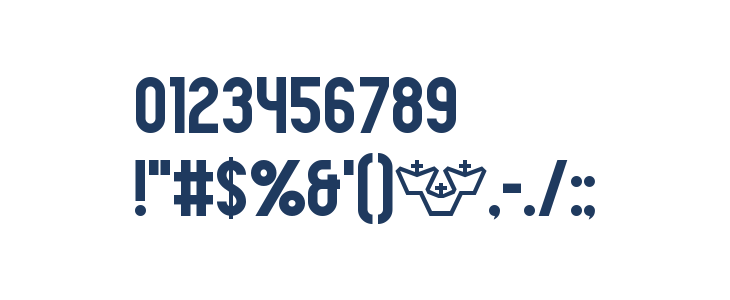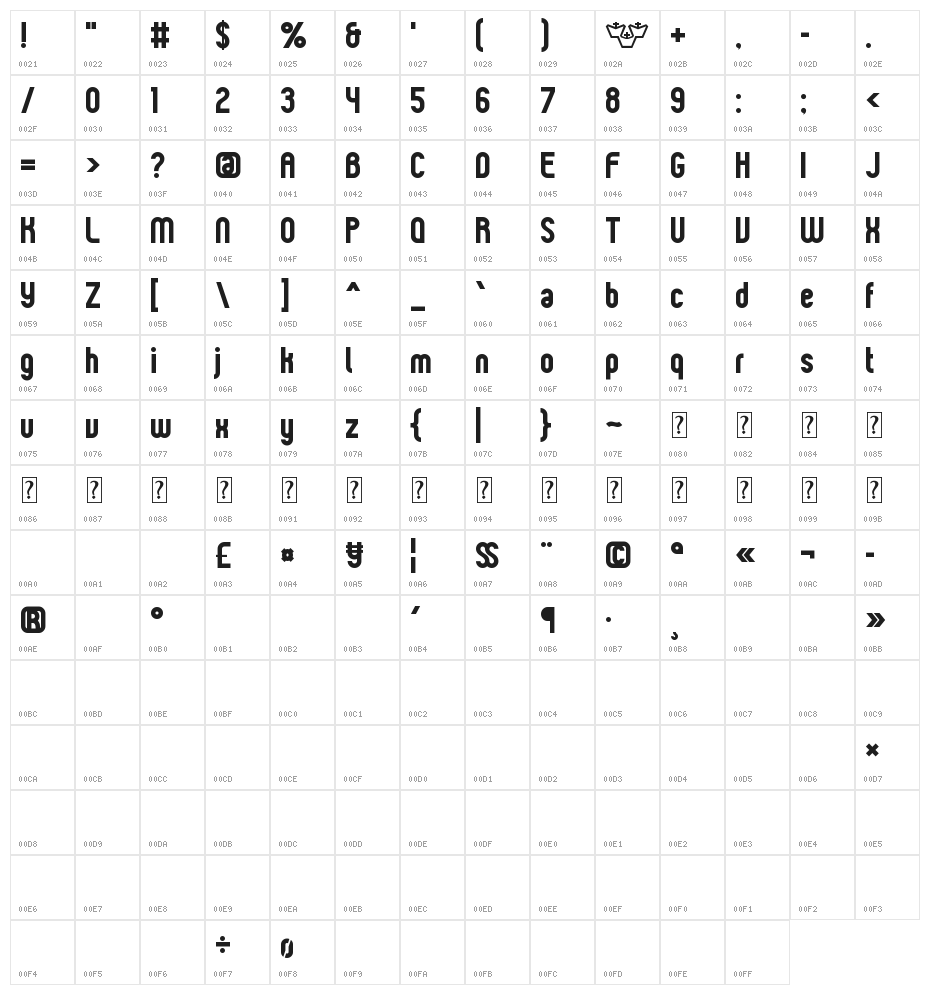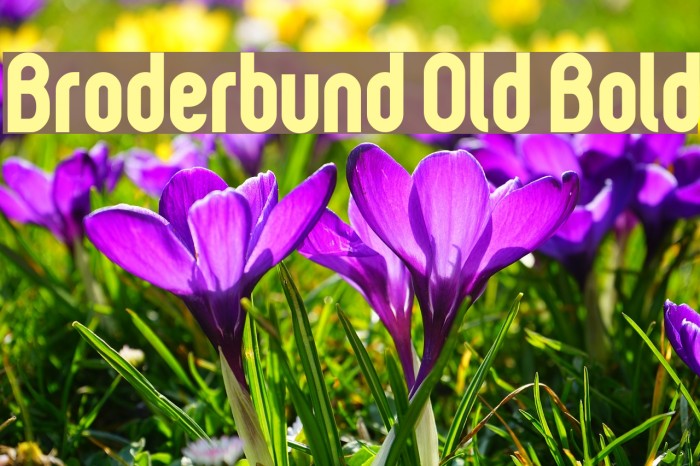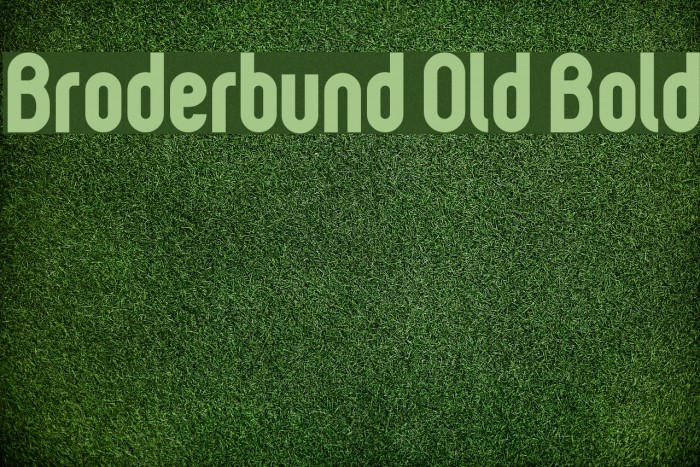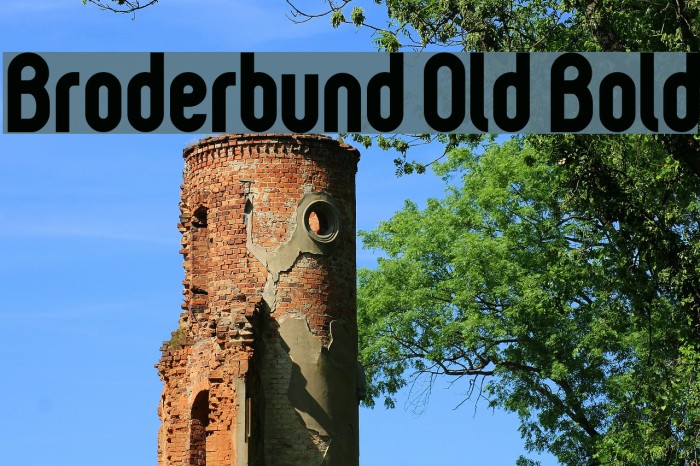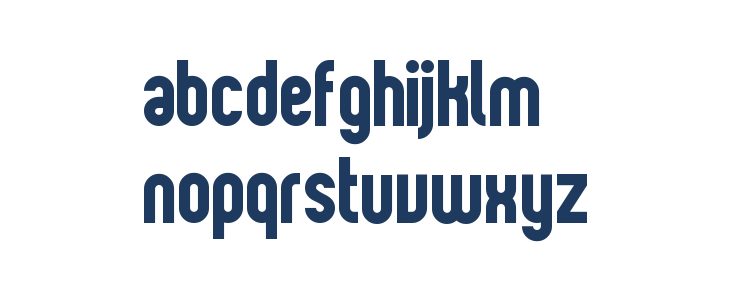
Broderbund Old Bold Font
Broderbund Old Bold Description
This font features a bold and geometric design with a strong presence. The characters are uniformly thick, showcasing a modern and structured appearance. The uppercase and lowercase letters maintain a consistent height, contributing to a cohesive look. The numerals are clear and easily distinguishable, while the special characters add a touch of uniqueness with their stylized forms. The overall design is clean and impactful, making it suitable for attention-grabbing headlines and titles.